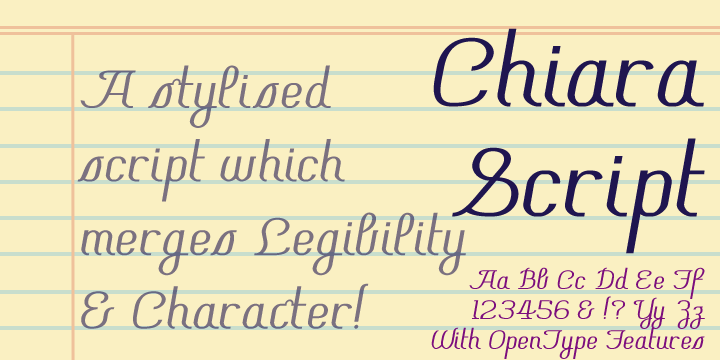
Chiara Script
Designed by: Paul James Lloyd
Designed when: 2009
Design owned by: Greater Albion Typefounders
Chiara Script
Chiara Script has a very simple origin. It’s a highly stylized interpretation of Greater Albion’s chief designer’s handwriting! It combines legibility and cursive characters in a distinctive blend and includes a range of OpenType features.